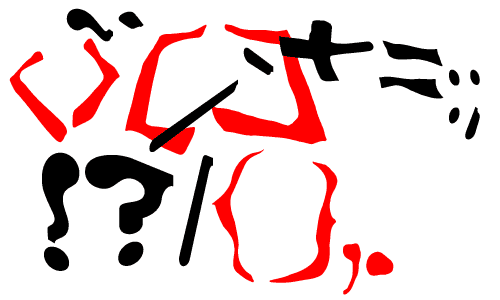
<>,.+={}[] Dennis Pasco, pixeltan
~`_-:;|\!?/ by Richard Chang, grand-opening
Space.
The region, usually of negligible density, between all celestial bodies
in the universe. Take letter forms, place them in two-dimesional space.
They will lose their form. Without anything to grab onto or any gravity
things tend to drift.